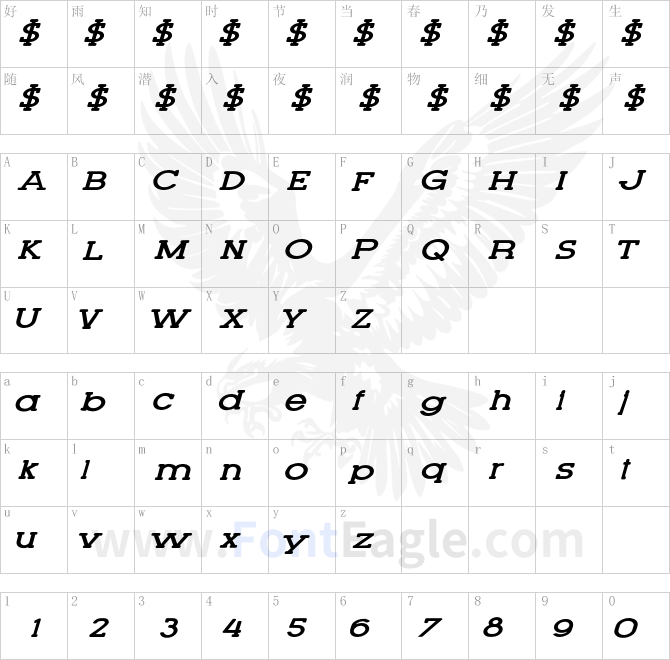
Lettering Set New Italic.otf Font Image
- Font name:Lettering Set New
- Font Full Name:Lettering Set New Italic
- Postscript:LetteringSetNew-Italic
Lettering Set New Italic.otf Characters Sample